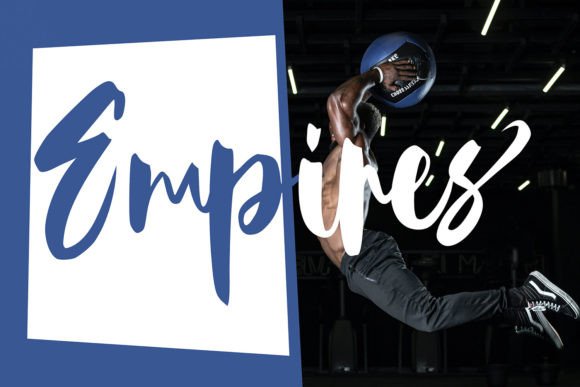
Behold Empires Font, a mesmerizing script font family that effortlessly exudes elegance and sophistication. Immerse yourself in the allure of this hand-drawn upright script brush font, meticulously crafted to elevate your creative projects to new heights. Empires Font is your ultimate companion for a myriad of endeavors, from captivating logos and branding projects to stylish homeware designs and captivating product packaging.
With Empires Font, your creations will radiate a touch of luxury and exclusivity. Imagine your designs adorning mugs, posters, and shopping bags, captivating the attention of all who lay eyes upon them. Your T-shirts will transform into wearable works of art, making a statement wherever you go. Book covers, business cards, and invitation cards will exude an air of professionalism and refinement.
Step into a realm of limitless possibilities with Empires Font. Its versatility knows no bounds, allowing you to create stunning wedding invitations, greeting cards, labels, and photography watermarks that leave a lasting impression. Whether you're planning a special event or seeking to add a touch of elegance to your everyday projects, Empires Font is your trusted ally.
Indulge in the beauty of this premium signature font, designed to lend an air of exclusivity to your projects. Let Empires Font be your muse as you craft designs that resonate with your audience, leaving them spellbound by your creativity. Its captivating charm will make your projects shine, whether you're a seasoned designer or just starting your creative journey.
Elevate your creations to the next level with Empires Font. Experience the magic of calligraphy and brush lettering, brought to life with the utmost precision and attention to detail. As you design with this remarkable font, you'll feel a sense of empowerment, knowing that you're creating something truly special.